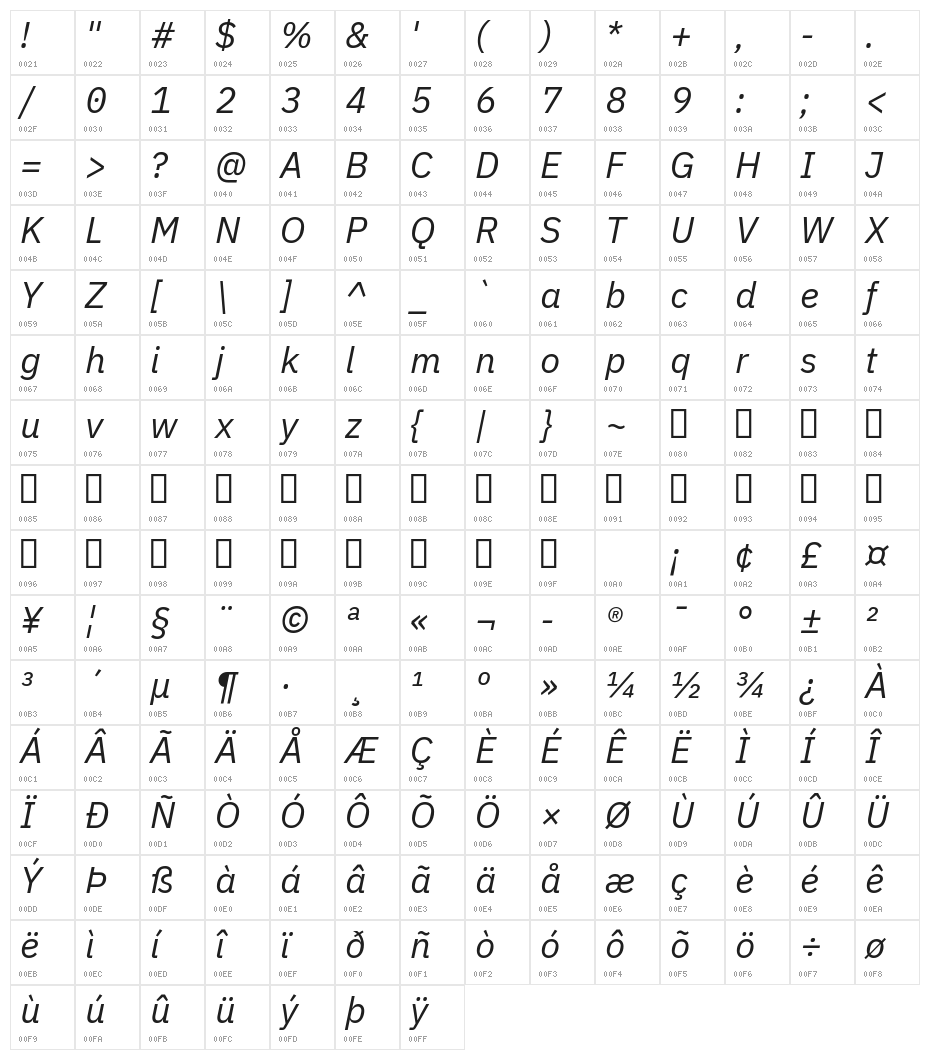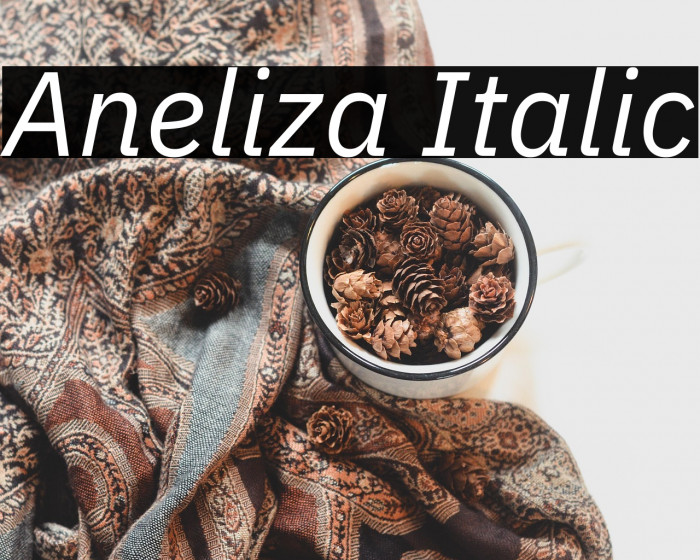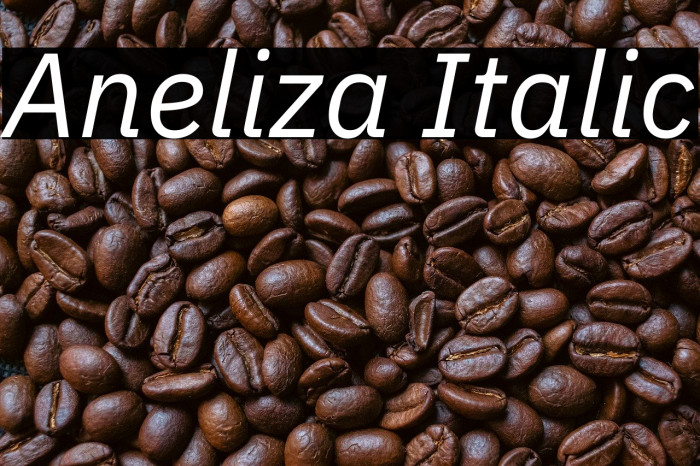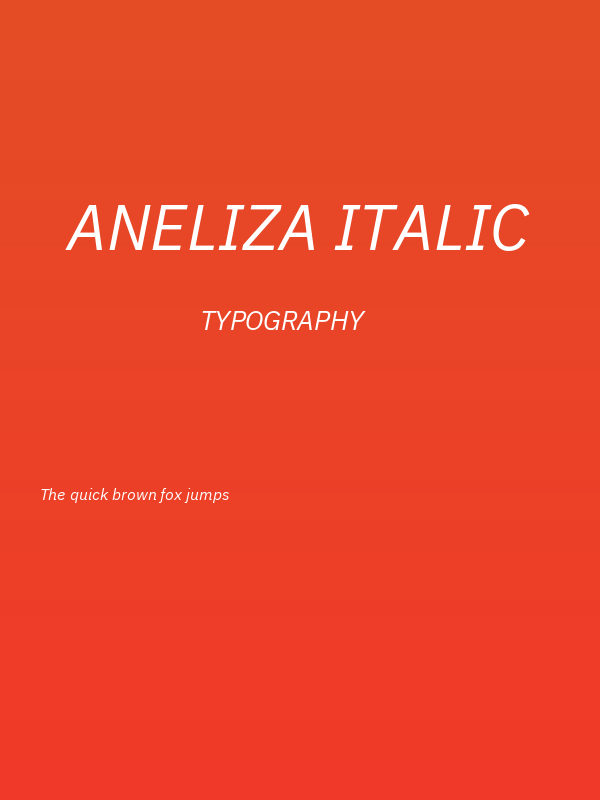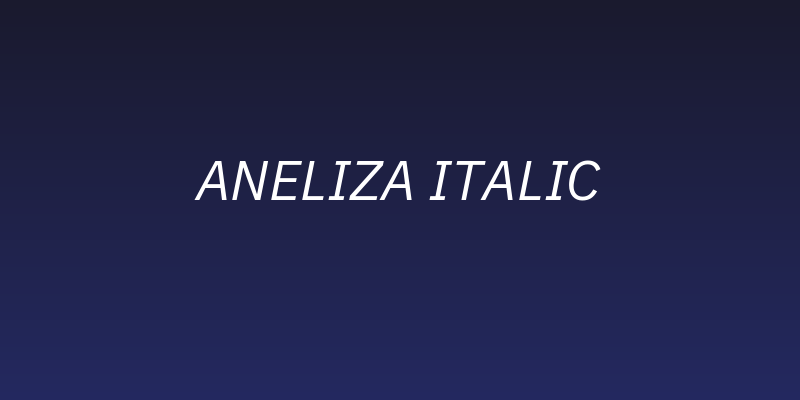
Aneliza Italic Font
Aneliza Italic Description
This font features a sleek and modern italic style, characterized by its smooth curves and slightly slanted letters. The uppercase and lowercase letters maintain a consistent flow, making it highly readable while adding a touch of elegance. The numerals are clear and distinct, complementing the overall design. Special characters are well-integrated, ensuring versatility in various text settings. The font's clean lines and balanced proportions make it suitable for both digital and print media, offering a professional yet approachable appearance.
Proposed ProjectsIdeal for branding, editorial design, and digital interfaces where a modern and elegant touch is desired.